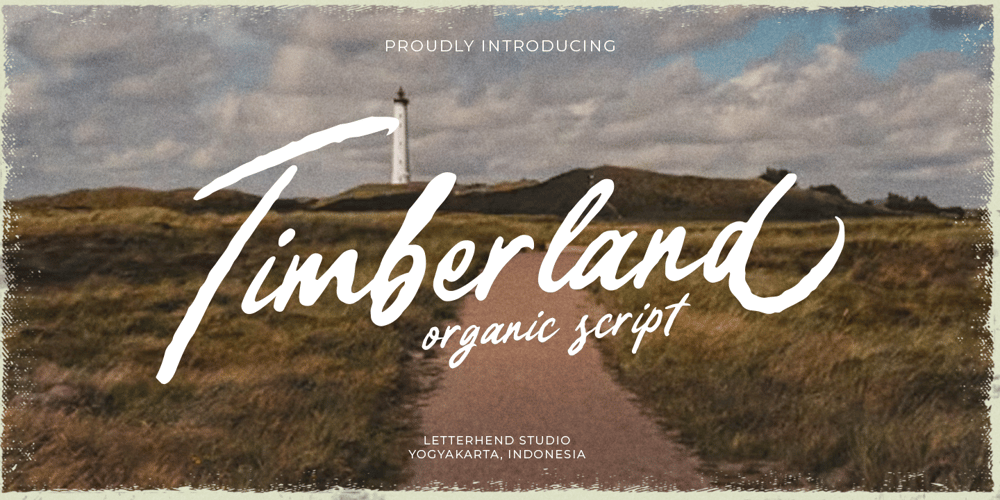
Timberland Font Family was designed by Hendry Juanda and published by Letterhend. Timberland contains 1 styles and family package options. Timberland is a casual script with organic style. This type of font perfectly made to be applied especially in logo, and the other various formal forms such as invitations, labels, logos, magazines, books, greeting / wedding cards, packaging, fashion, make up, stationery, novels, labels or any type of advertising purpose.Features : Uppercase & lowercase Numbers and punctuation Alternates & Ligatures Multilingual PUA encoded We highly recommend using a program that supports OpenType features and Glyphs panels like many of Adobe apps and Corel Draw, so you can see and access all Glyph variations.